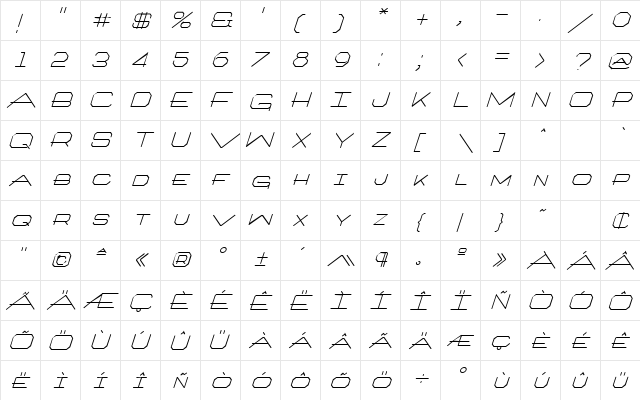
Architext Italic
Design Context for Architext Typeface
Architext is a composed and adaptable typeface that performs quietly and consistently across a wide range of design contexts. Its italic angle brings a sense of urgency and motion to the letterforms.
Pro Tip: Use Architext for emphasis, pull quotes, and subheadings where its slanted energy can add rhythm to the layout.